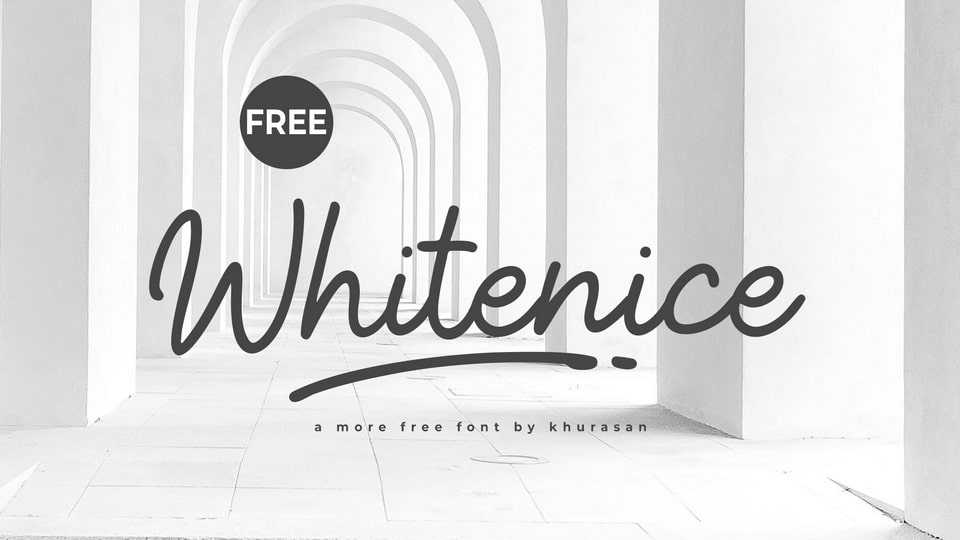
Download Whitenice font, a casual handwritten typeface that captures the effortless elegance of a personal signature with its fluid strokes and natural curves.